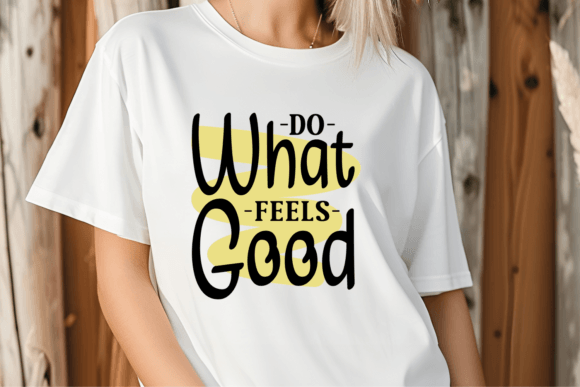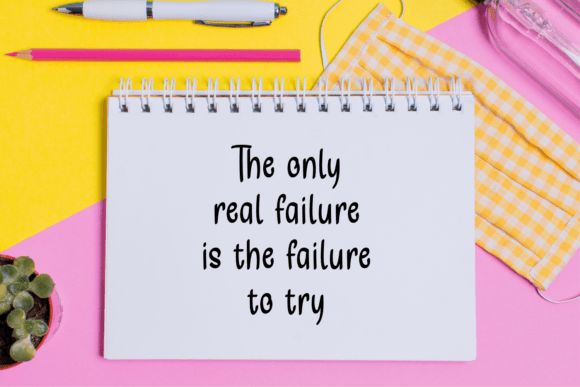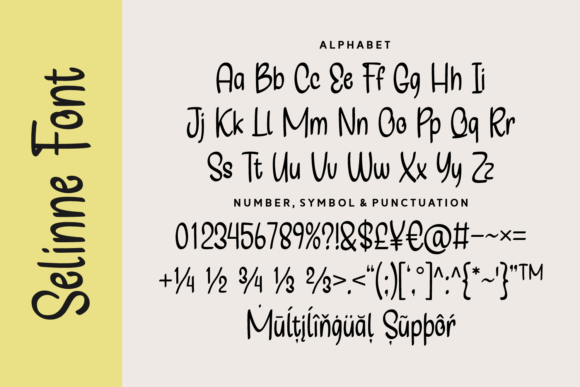
Introduction to Selinne Font
Have you ever been in the midst of a creative project, pouring your heart and soul into it, only to realize that the perfect font is missing? It’s a frustrating moment, especially when the entire design hinges on it. This is exactly why discovering the right font can be a game-changer for designers. And that’s where the Selinne Font comes in – a simple yet elegant handwritten font that can elevate your work to the next level.
With its natural imperfections and playful spacing, the Selinne Font adds a touch of humanity to your designs, making it an ideal choice for both professional and personal projects. Whether you’re working on a high-quality design resource or a creative project, this font is sure to bring a unique touch to your work.
Key Features of Selinne Font
- High-quality design font suitable for creative projects
- Unique, modern design suitable for a wide range of applications, from digital to print media
Honest Review: Selinne Font
The high quality of the font is evident in its smooth lines and clear typography. It’s perfect for any creative project that requires a elegant and sophisticated look.
Here are some of the things that work well about the Selinne Font:
- ✨ High quality design that’s perfect for creative projects
- ⚠️ Limited character set may not be suitable for complex projects
- ⚠️ Not as customizable as some other fonts in the market
Overall, I’m impressed with the Selinne Font. It’s a great design resource for anyone looking for a high-quality, elegant font for their next creative project.
Selinne Font
Tips for Getting the Most Out of Selinne Font
Use the Selinne Font in conjunction with other design elements to create visually appealing graphics. Experiment with different font sizes, colors, and styles to find the perfect combination.
The Selinne Font is ideal for designing logos, social media graphics, posters, and other creative projects that require a high-quality, unique font.
Is the Selinne Font suitable for large-scale designs, such as billboards or posters?
The Selinne Font is designed to be versatile and scalable, making it suitable for various design applications, including large-scale projects like billboards or posters. However, it’s essential to ensure that the font is properly vectorized and optimized for high-resolution output to maintain its high-quality appearance.